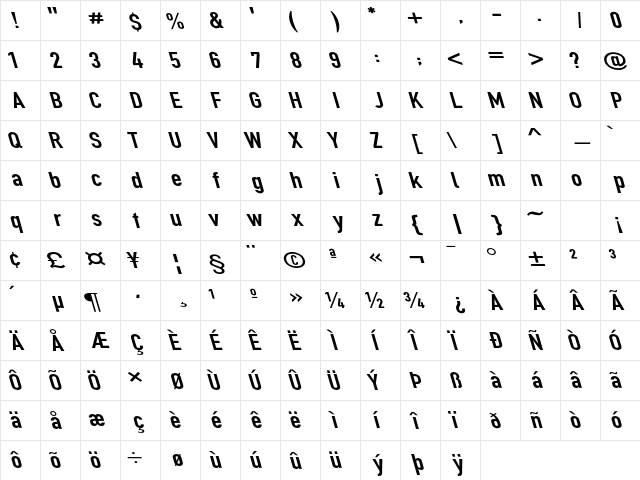
Din Kursivschrift BreitLeft
Design Context for Din Kursivschrift Typeface
Din Kursivschrift is a composed and adaptable typeface that performs quietly and consistently across a wide range of design contexts. Its italic angle brings a sense of urgency and motion to the letterforms.
Pro Tip: Try Din Kursivschrift for annotation and caption copy alongside an upright companion — the contrast in angle creates a dynamic but ordered typographic system.